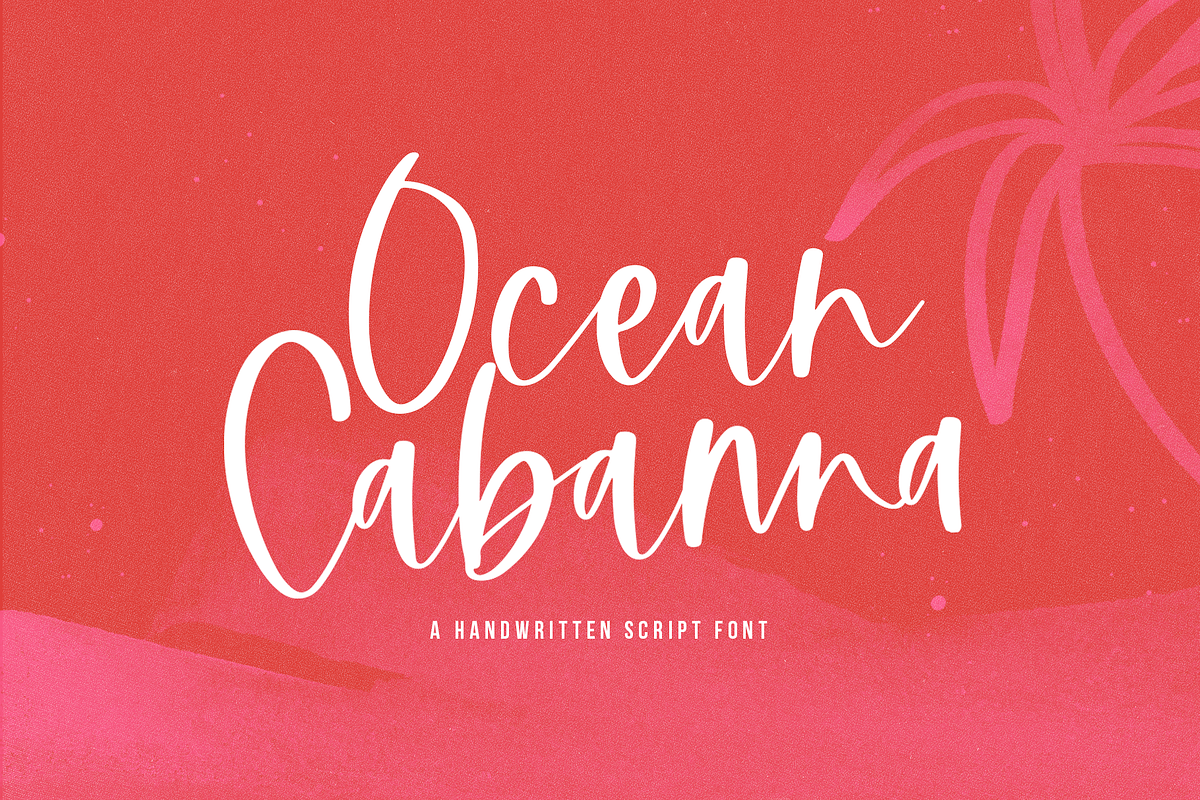
Ocean Cabanna – Script Font Free Download is a breezy and elegant handwritten typeface inspired by sun-soaked beaches and laid-back coastal vibes. Please note, you are required to purchase this font for commercial use. It is available for free download for testing and personal projects only.
With its flowing curves, relaxed style, and beachy charm, Ocean Cabanna is perfect for summer branding, travel blogs, wedding invitations, social media posts, product packaging, and tropical-themed designs. It brings a carefree yet classy personality to your typography—like a signature written in the sand.
By choosing Ocean Cabanna – Script Font Free Download, you're adding a high-quality, easy-to-install script font that works seamlessly across all major design platforms. Whether you’re designing for vacation vibes or heartfelt messages, Ocean Cabanna adds warmth, rhythm, and coastal elegance to every project.